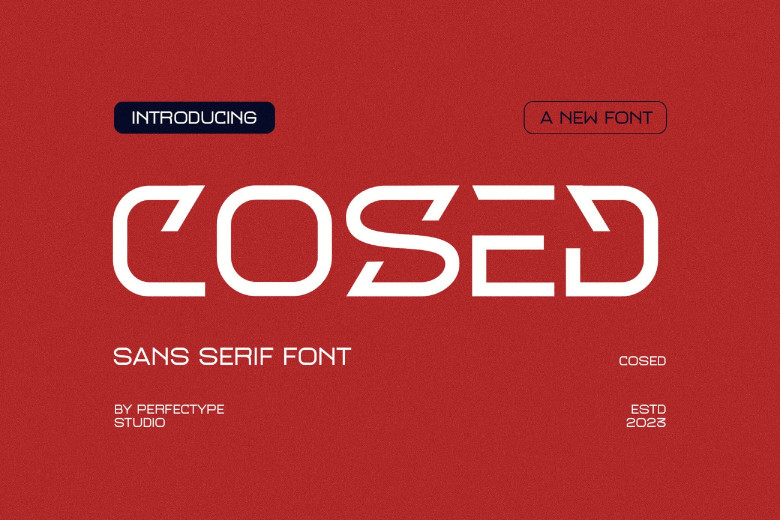
Cosed Font
Cosed Font is an equilibristic rhythm with an even, balanced design created from a unique mix of ideas from many sources. The proportions are carefully adjusted using gentle contours and subtle contrasts, and each glyph offers an appealing appearance without compromising elegance or minimalism – meaning every one works effectively across graphic design applications, including brochures, videos and advertising logos, magazines design layout posters template poster templates post templates games etc.
Cosed Sans Serif Font